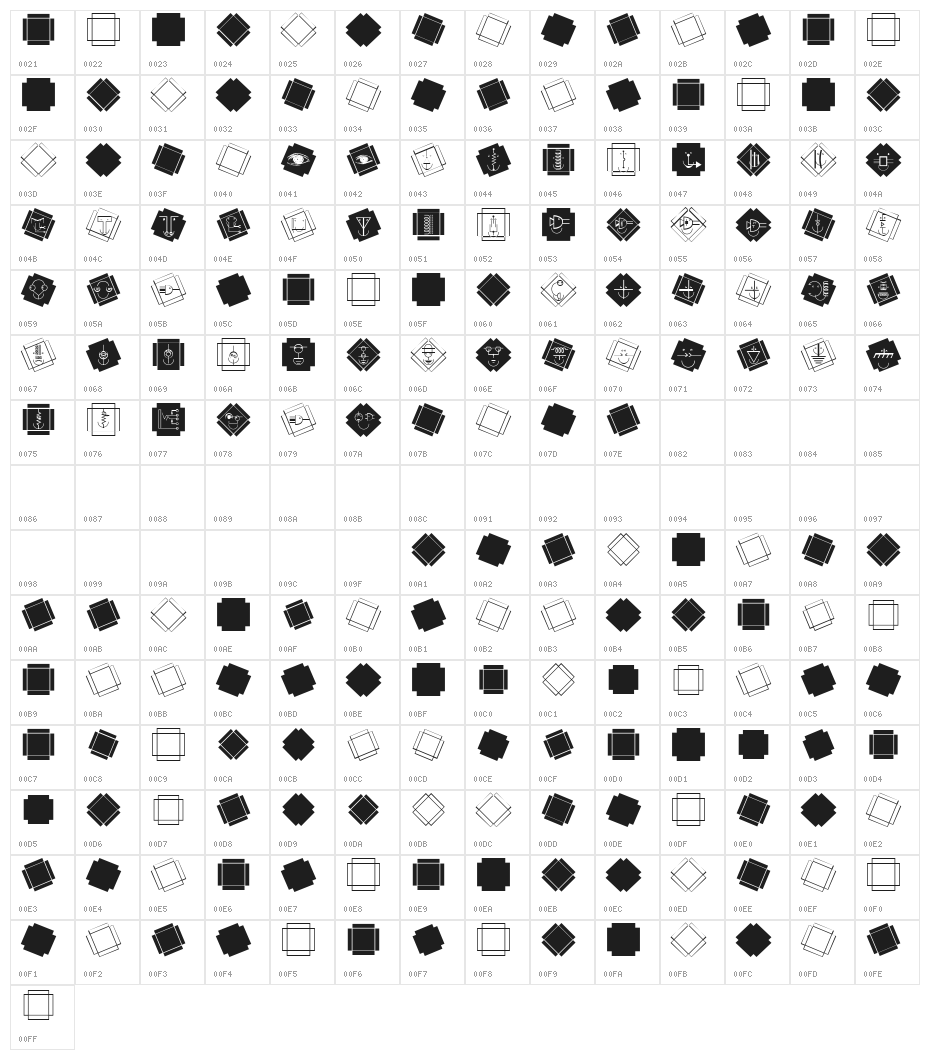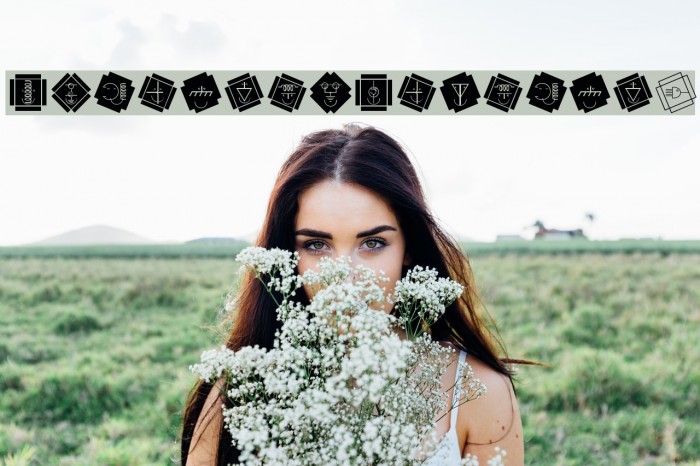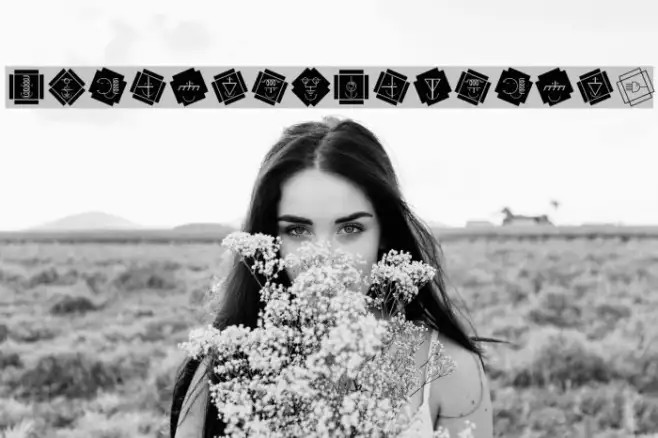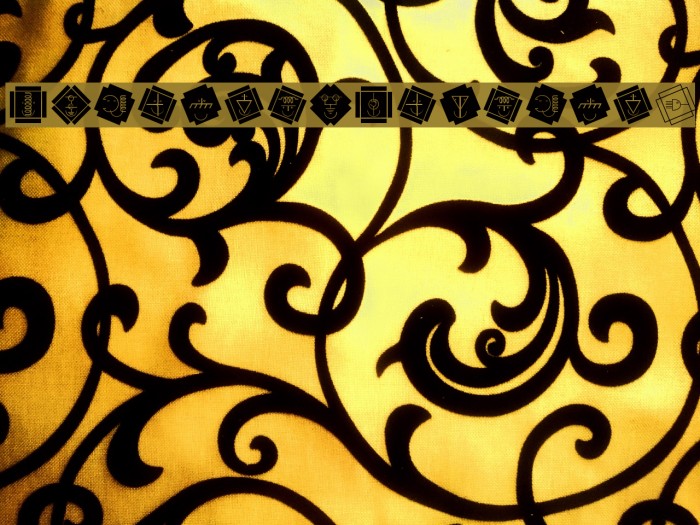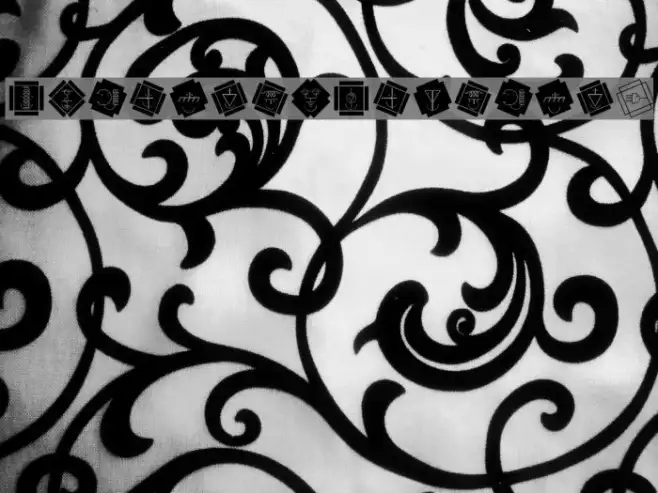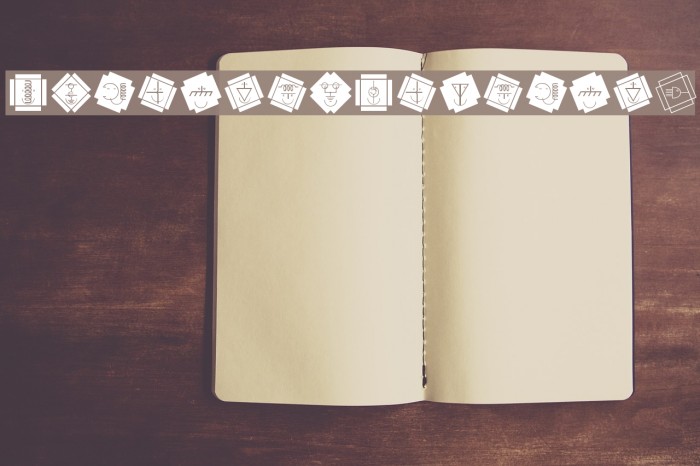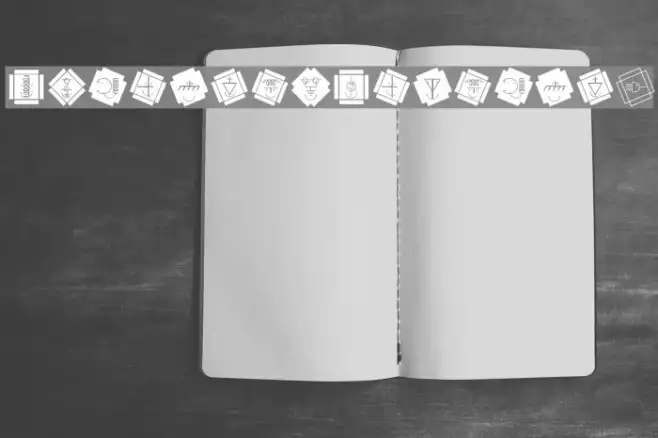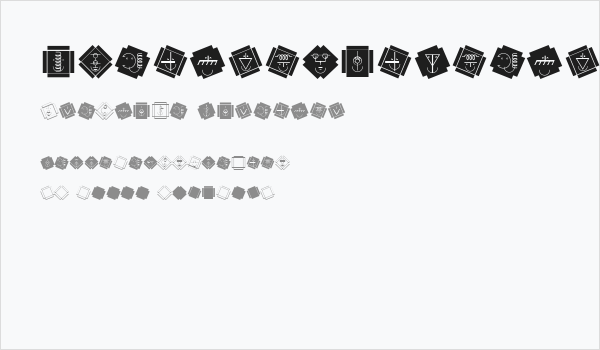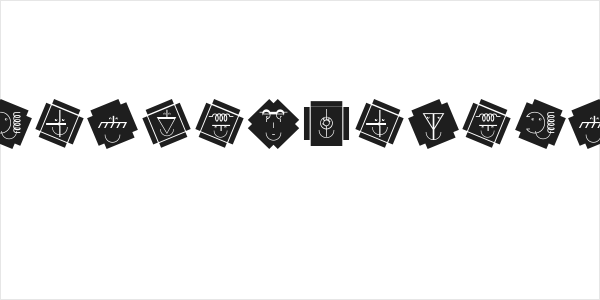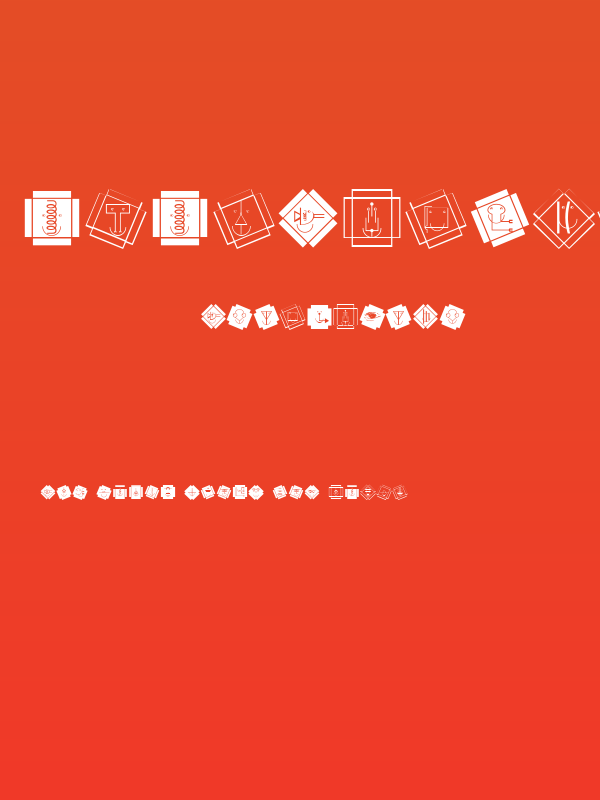
ElectronicPoetry Font
A highly decorative and abstract display font featuring geometric shapes and line art illustrations within square or diamond backgrounds, alternating between filled and outlined forms. Each character is uniquely stylized, often resembling faces or symbols, making legibility secondary to visual impact.
| Overall Style | Decorative, Abstract, Modern |
| Proposed Projects | Album covers, avant-garde posters, experimental branding, art installations, digital art projects. |